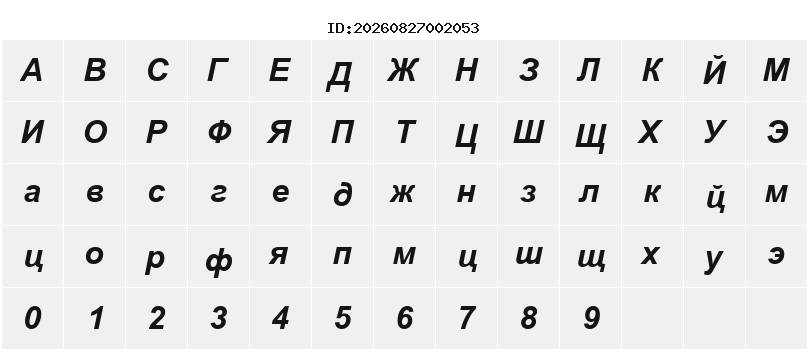
972-CAI978 Preview
About 972-CAI978.ttf
972-CAI978.ttf is a modern, elegant sans-serif font designed for ultimate readability and visual harmony. Perfect for branding, headlines, web design, and print materials.